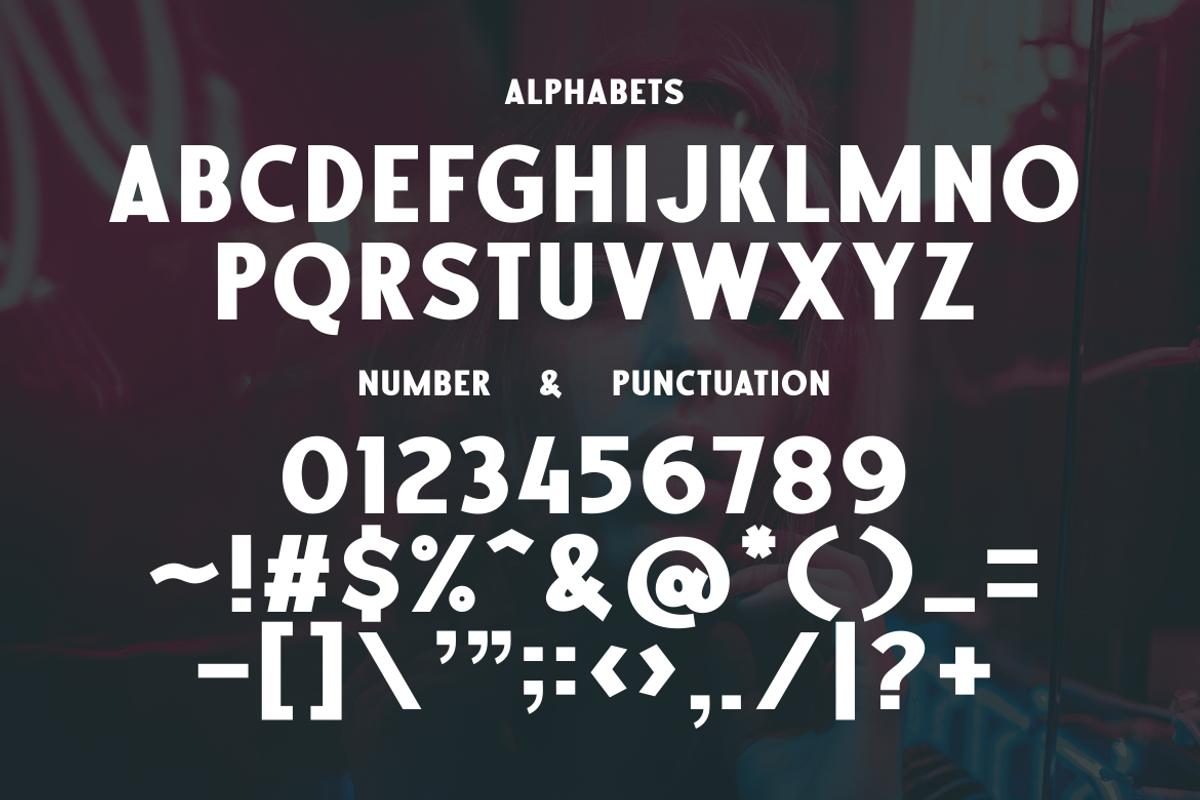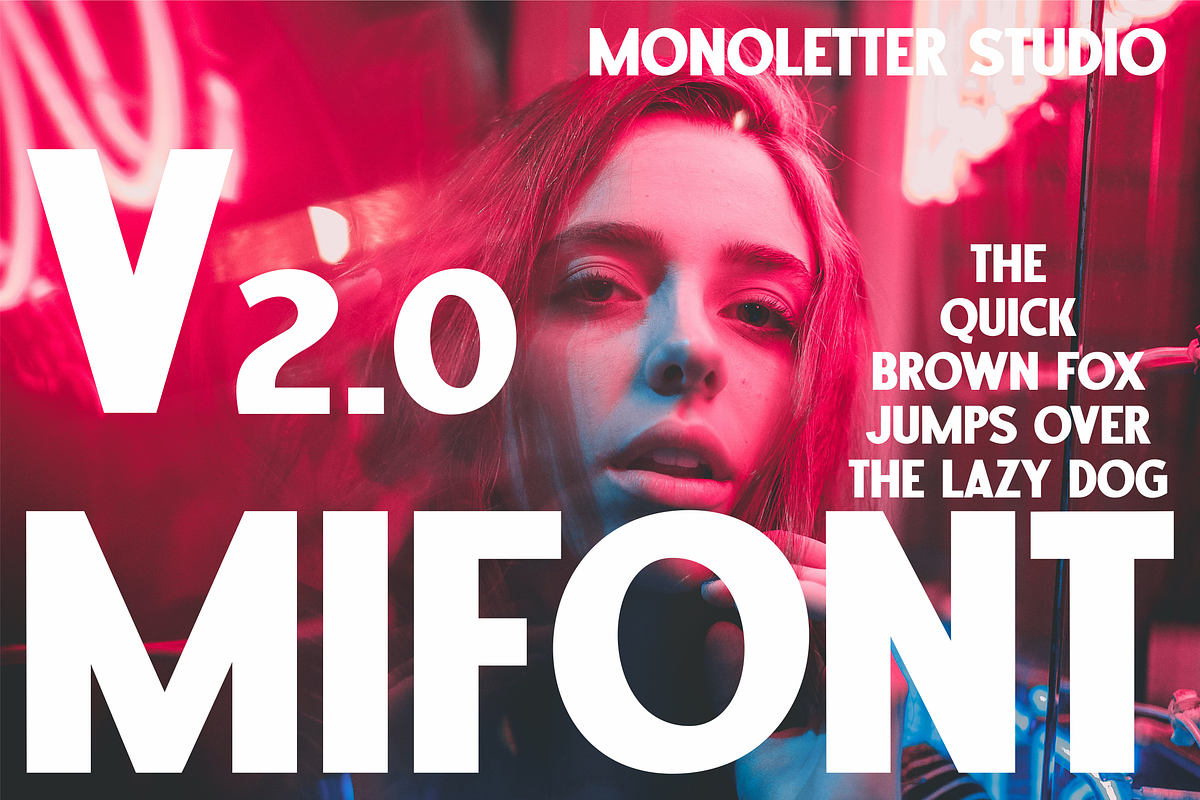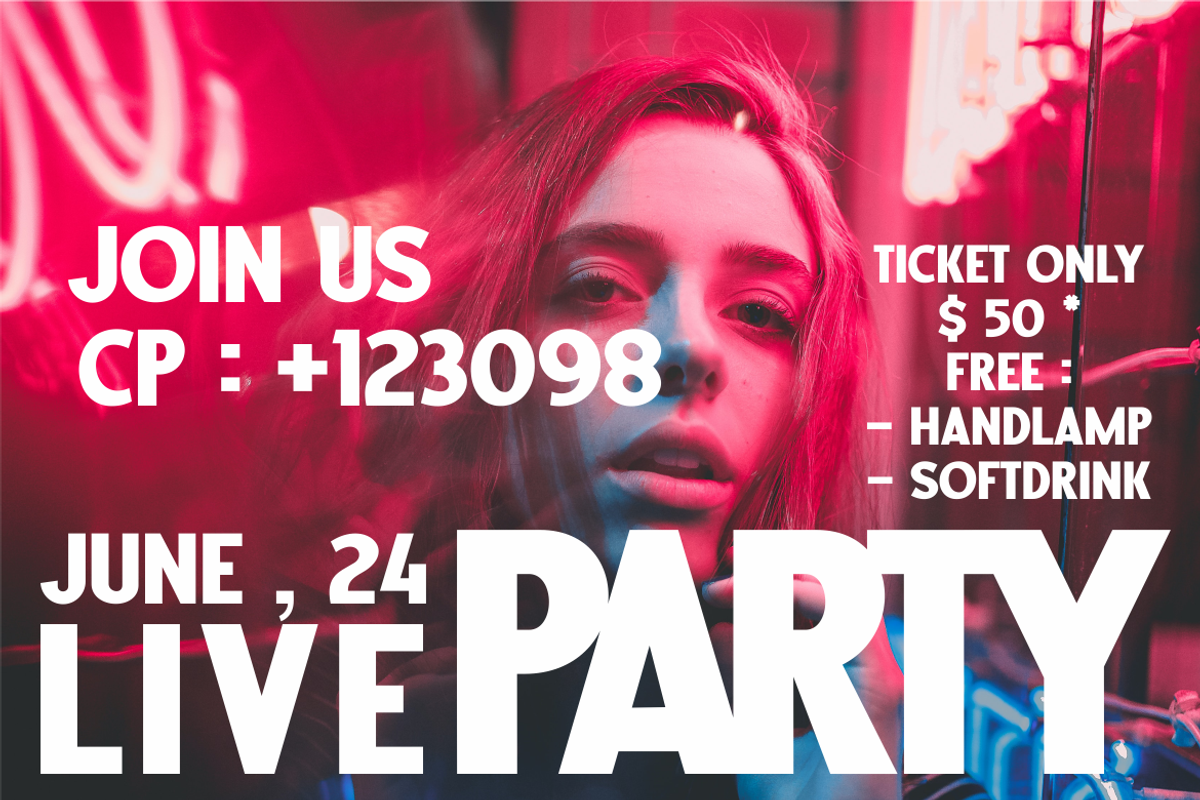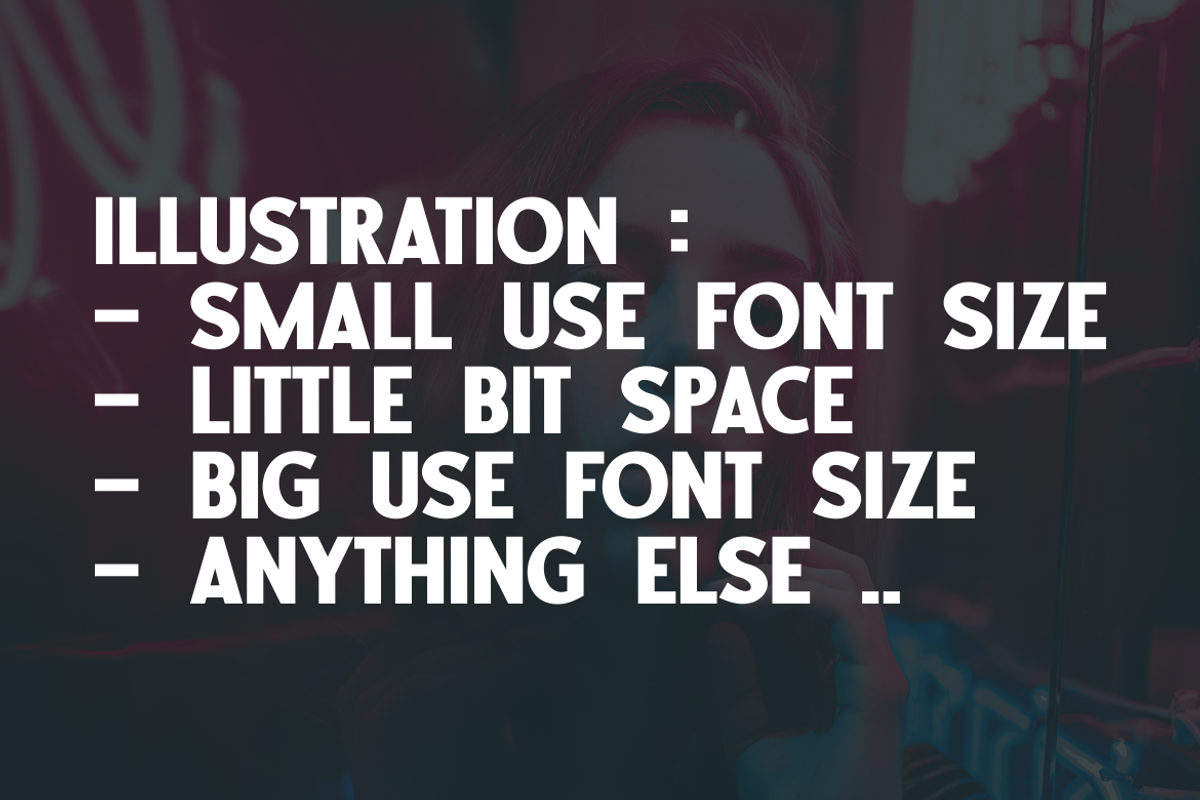
Mifont Party Live Music Font
Unleash your creativity with our unique and lively font, perfect for capturing the rhythm and pulse of musical events. Its dynamic design resonates with the energy of live concerts, making it an ideal choice for promotional materials or music event banners. Let this font set the tone and resonate with your audience, conveying the awesome vibe of your music-related projects effectively.